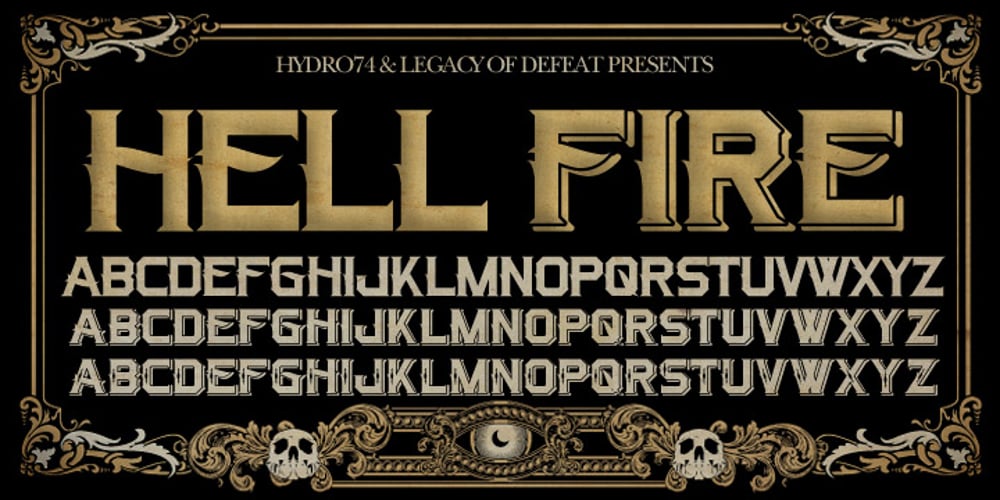
H74 Hellfire
H74 Hellfire font
H74 Hellfire Font Family was designed by Joshua M. Smith and published by Hydro74. H74 Hellfire contains 3 styles and family package options. Hell Fire is a hybrid of traditional early sign painters block and a hint of urban modern day culture.